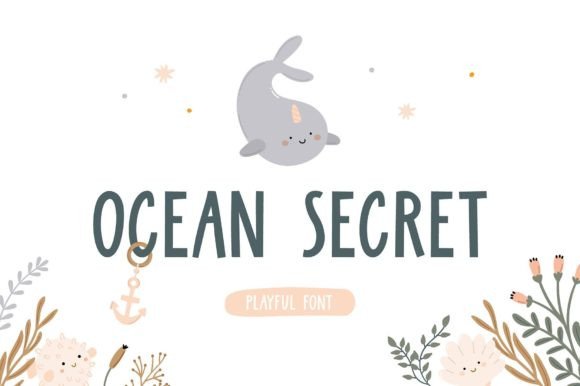
OCEAN SECRET: A PLAYFUL FONT WITH PURPOSE
When it comes to typography, the right font can transform a design from ordinary to extraordinary. Ocean Secret is one such typeface that brings a unique blend of playfulness and simplicity to any project. With its all-caps style, itās ideal for adding a touch of emotion and clarity without overwhelming the viewer. Whether you're designing for kids or creating professional materials, Ocean Secret offers a versatile and expressive option that's easy to work with.
What Makes Ocean Secret Unique
At first glance, Ocean Secret stands out for its bold, uppercase letters that exude a sense of fun and confidence. Unlike many fonts that aim for sophistication or minimalism, this one leans into a more approachable and energetic vibe. Its clean lines and consistent stroke widths make it highly readable, even at smaller sizes. This makes it perfect for a wide range of applications, from digital interfaces to printed materials.
The fontās name itself hints at its characterāsomething mysterious yet inviting. It suggests a sense of discovery, which aligns well with creative projects that aim to spark curiosity. Its simplicity also means it pairs well with other fonts, allowing designers to create balanced compositions without sacrificing visual interest.
Creative Possibilities with Ocean Secret
One of the most appealing aspects of Ocean Secret is its adaptability. It works well in both casual and formal settings, making it a go-to choice for various design needs. For instance, a childrenās book might use it for chapter titles or character names, where its playful nature can engage young readers. On the other hand, a business brochure could use it for headings to add a fresh, modern twist without appearing too informal.
Designers often find that Ocean Secret is particularly effective in branding projects. Its strong, clear presence helps establish a brandās identity while maintaining a friendly tone. This is especially useful for startups or small businesses looking to stand out in a competitive market. The fontās versatility also allows it to be used across multiple platforms, from social media posts to packaging designs.
Applications Across Different Industries
Marketers can leverage Ocean Secret for campaign headlines, where its boldness draws attention without being distracting. Itās also great for call-to-action buttons, as it conveys urgency and clarity. In the educational sector, teachers and curriculum developers might use it for lesson plans or student handouts, where readability is key.
Bloggers and content creators can benefit from using Ocean Secret in their site headers or featured images. It adds a personal touch that reflects the creatorās style while keeping the overall look professional. For entrepreneurs, itās an excellent choice for logos or website titles, offering a memorable and distinctive visual identity.
How to Use Ocean Secret Effectively
To get the most out of Ocean Secret, consider the context in which it will be used. Since itās an all-caps font, itās best suited for short phrases or titles rather than long paragraphs. Using it for body text can reduce readability, so itās important to pair it with a complementary font for larger blocks of content.
Another tip is to experiment with different weights and styles. Some versions of Ocean Secret may include variations like bold or light, allowing for greater flexibility in design. This can help create visual hierarchy and keep the layout dynamic without relying on too many different typefaces.
Practical Tips for Designers
When working with Ocean Secret, start by defining the purpose of your design. Is it for a childrenās product, a corporate presentation, or a personal project? Understanding the audience will guide how you apply the font. For example, a childrenās toy packaging might use it in bright colors and large sizes, while a professional report might use it sparingly for section headings.
Consistency is also key. If youāre using Ocean Secret in multiple parts of a design, ensure that itās applied uniformly. This helps maintain a cohesive look and prevents the design from feeling cluttered or chaotic. Additionally, testing the font in different formatsāsuch as print, web, or mobileācan reveal any potential issues with legibility or spacing.
Real-World Examples and Inspiration
Looking at real-world examples can provide valuable insight into how others have used Ocean Secret. A popular example is in the design of wellness apps, where the fontās friendly and clear appearance supports a calming user experience. Similarly, event planners often use it for invitations or signage, where its boldness ensures visibility without being overwhelming.
For those looking for inspiration, exploring design platforms like Dribbble or Behance can offer a range of ideas. Many designers share their work using Ocean Secret, showcasing how it can be adapted for different styles and purposes. These examples can serve as a starting point for your own creative projects.
By understanding its strengths and limitations, you can use Ocean Secret effectively to meet your design goals. Its versatility and ease of use make it a practical choice for a wide range of applications. So why not give it a try and see how it can bring a new level of energy and emotion to your work?